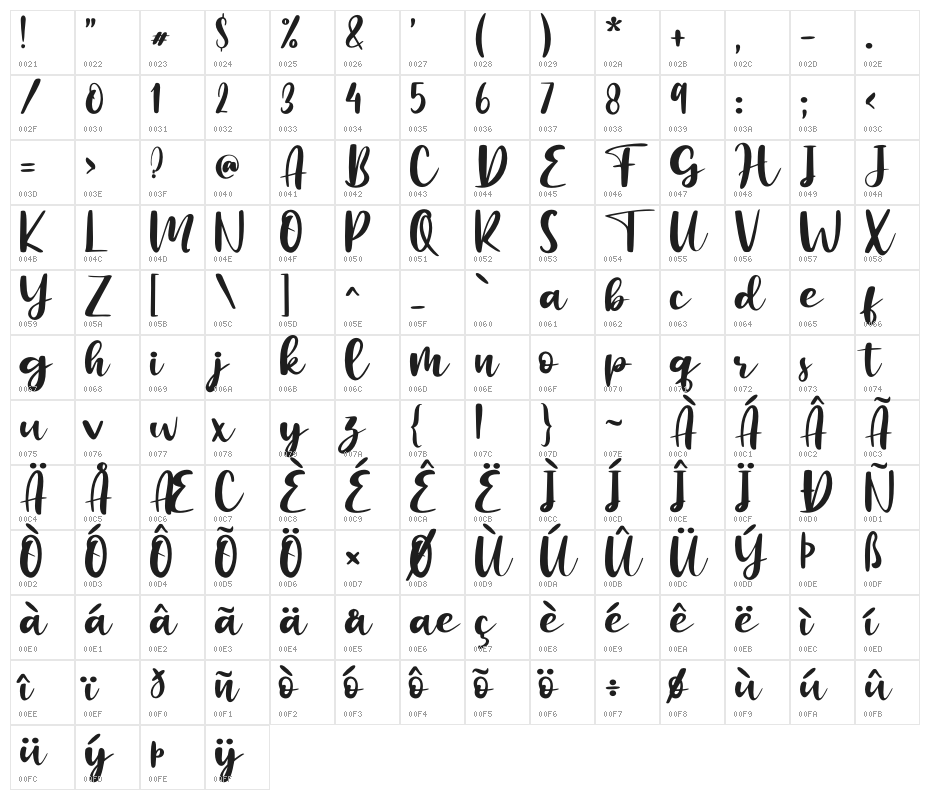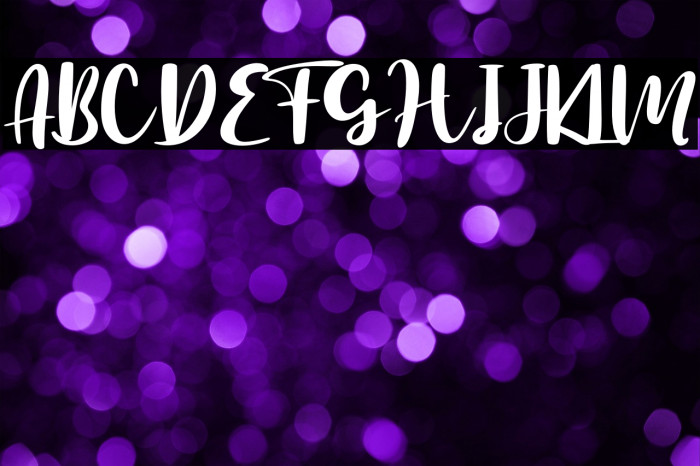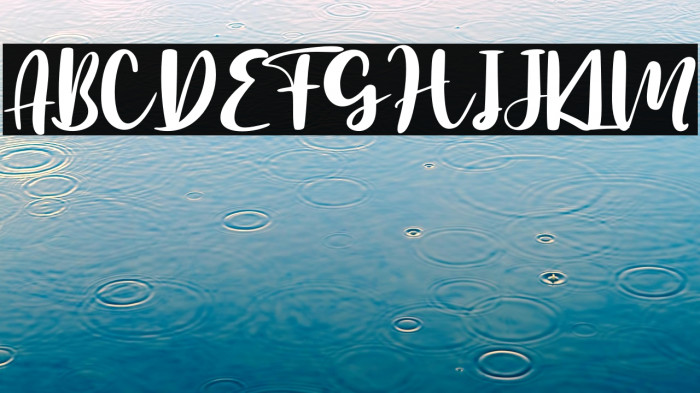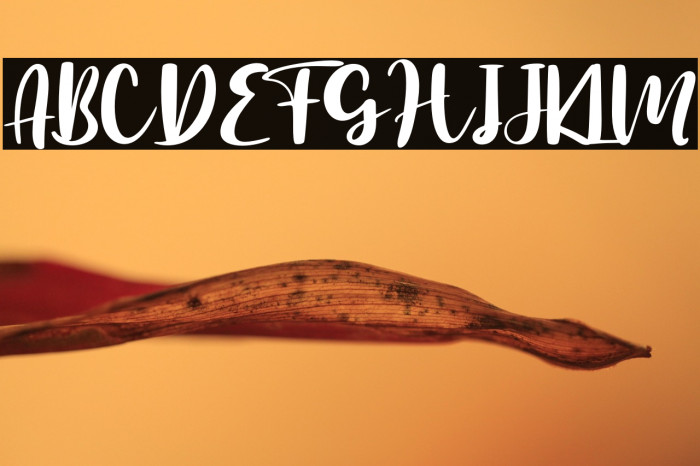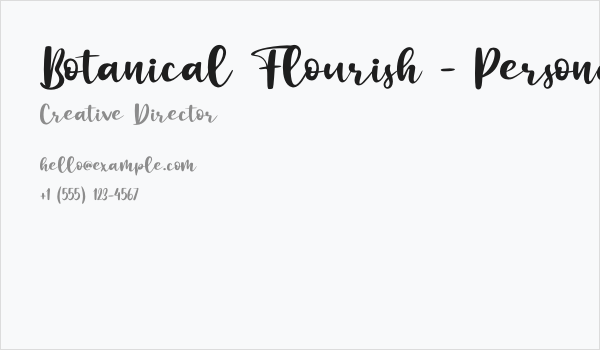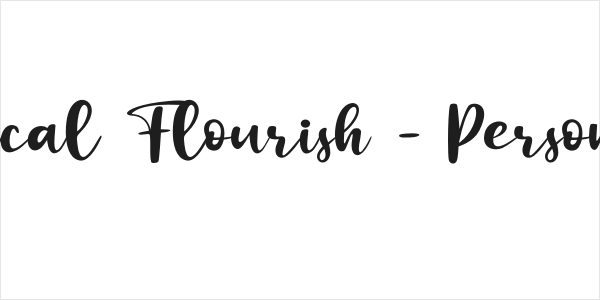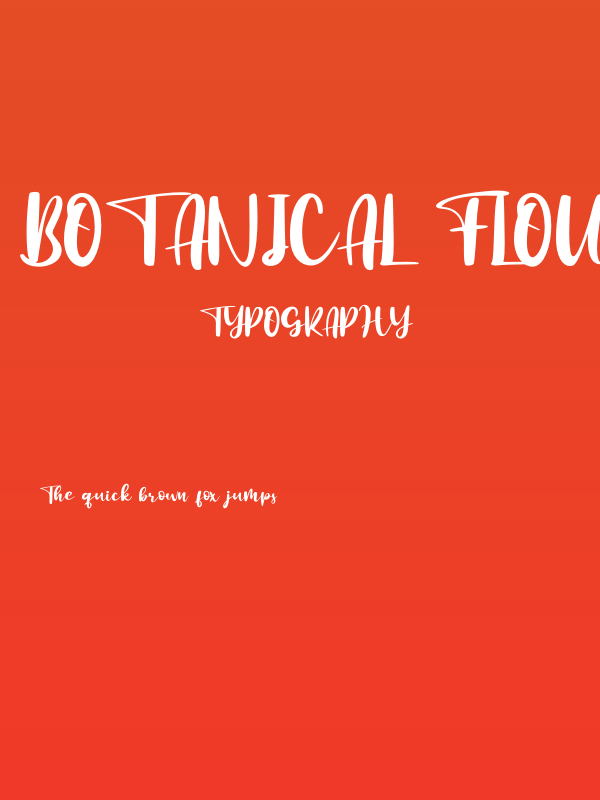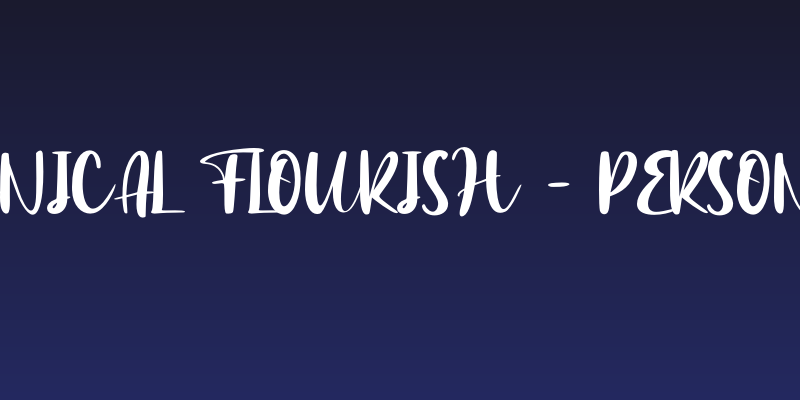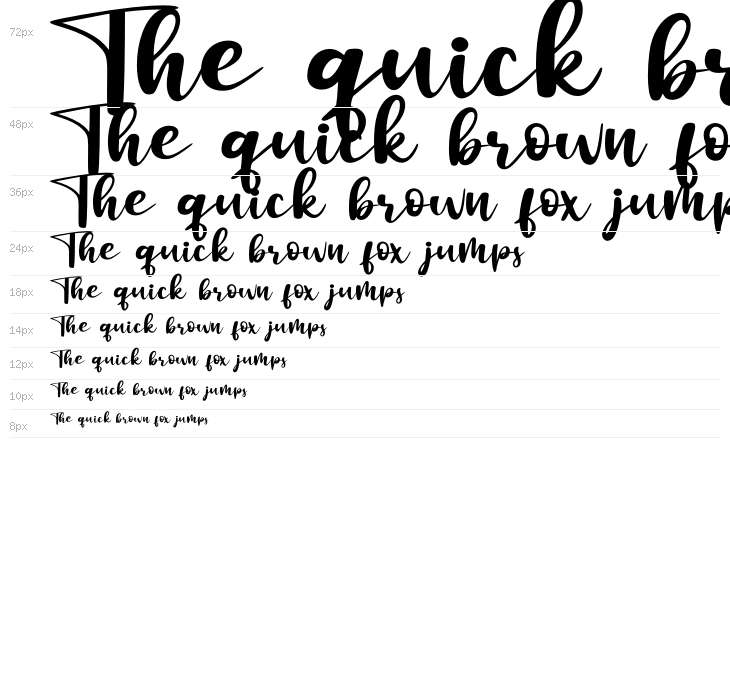
Botanical Flourish - Personal U Font
Botanical Flourish - Personal U Description
This font features a bold, expressive script style with a modern flair. The characters are crafted with a flowing, handwritten appearance, showcasing elegant curves and flourishes. The uppercase letters are particularly striking, with a dynamic and artistic quality that adds a sense of movement and energy. The lowercase letters maintain a consistent style, complementing the uppercase with their smooth, rounded forms. The numerals are bold and clear, ensuring readability while maintaining the overall aesthetic. Special characters are included, each designed with the same attention to detail and stylistic consistency. This font is perfect for projects that require a personal, creative touch.
Use CaseLogos, Headlines, Invitations
Proposed ProjectsIdeal for branding, invitations, greeting cards, and creative design projects that require a personal touch.